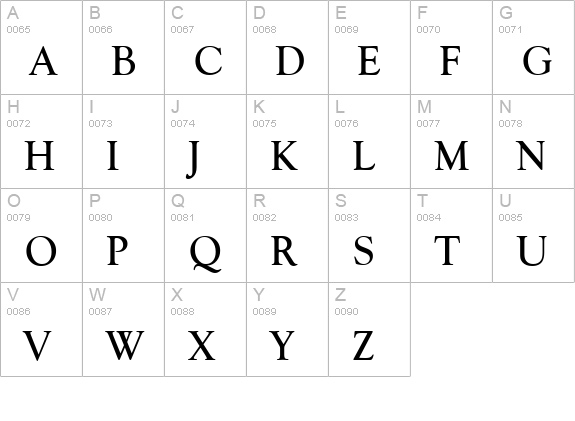
GoudySerial-Medium-Regular is a balanced, medium-weight variant in the GoudySerial typeface family \xE2\x80\x94 well suited to sub-headlines, navigation, and balanced editorial work.
GoudySerial-Medium-Regular font is a classic and elegant typeface that exudes sophistication and refinement. Its timeless design makes it perfect for a wide range of projects, from branding to editorial design. The medium weight of this font strikes the perfect balance between elegance and readability, making it a versatile choice for both display and body text. Best of all, GoudySerial-Medium-Regular font is available for free download at FontsMarket.com. This means you can easily access and use this beautiful typeface in your projects without any cost. Whether you're working on a website, brochure, or any other design project, GoudySerial-Medium-Regular font is sure to add a touch of class and style. Don't miss out on this amazing opportunity to enhance your designs with this exquisite font - download it for free today!